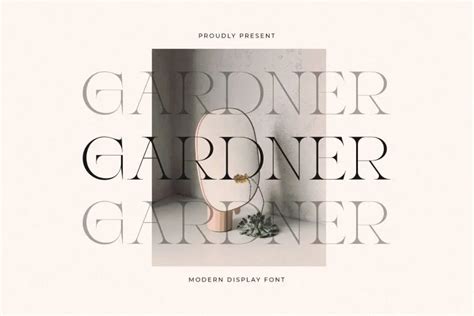
Hey guys, let’s talk about fonts! Specifically, the Gardner font . If you’re on the hunt for a typeface that’s both classic and contemporary, you’ve probably stumbled upon Gardner. It’s a real stunner, known for its clean lines and versatile nature. Whether you’re designing a logo, a website, or just need some killer text for a print project, Gardner can seriously level up your game. But the big question on everyone’s mind is: can you get the Gardner font for free? Well, buckle up, because we’re diving deep into the world of font downloads, legalities, and where you might just snag this awesome font without breaking the bank.
The Gardner Font: Is it Really Free? A Deep Dive
So, back to our star, the Gardner font. From what we can gather, the original Gardner font, designed by typographer Mark van Bronkhorst , is a commercial typeface. This means that for full, unrestricted use, especially for commercial projects, you’ll typically need to purchase a license. These licenses can vary depending on the foundry (the company that sells the font) and the scope of your usage. Think websites, print materials, merchandise – each might have different licensing tiers. Trying to find a truly free download of the original, copyrighted Gardner font for commercial use is likely to lead you down a rabbit hole of sketchy websites and potentially illegal downloads. And let’s be real, we want to keep things legit and support the designers, right?
However, the world of typography is vast and wonderful. Sometimes, fonts inspired by popular designs, or fonts that share a similar aesthetic, might be available for free. These are often created by independent designers or found on platforms that offer free fonts. While they might not be the exact Gardner font, they could offer a very similar vibe for your projects. It’s always worth exploring these alternatives if your budget is tight.
• Adobe Fonts (formerly Typekit): If you’re an Adobe Creative Cloud subscriber, you have access to a vast library of premium fonts, including many professional-grade typefaces, often similar in style to Gardner. This is a fantastic, legal way to access high-quality fonts without individual purchases for each project. It’s a serious game-changer for designers.
• Creative Market / Envato Elements: These platforms are marketplaces where designers sell their work. You’ll find premium fonts here, including professional versions of fonts like Gardner. While not free, they often have sales, bundles, and subscription options that can make acquiring high-quality fonts more affordable. Plus, you’re directly supporting the creators!
Looking for Gardner-Esque Alternatives?
If the specific Gardner font is out of reach for your current needs, don’t despair! There are plenty of fonts that share its clean, readable, and modern aesthetic. When searching for alternatives, keep an eye out for these characteristics:
• Geometric Sans-Serifs: Gardner has a strong geometric influence. Look for fonts with clean, circular or polygonal shapes in letters like ‘o’, ‘a’, and ‘e’. Fonts like Montserrat, Lato, or Poppins on Google Fonts often fit this bill.
• Humanist Sans-Serifs: These fonts have a bit more warmth and calligraphic influence, often with varied stroke widths. They can also offer a sophisticated and friendly feel. Consider Open Sans or Roboto.
• Neutral and Versatile: The best alternatives will be fonts that are highly readable across different sizes and mediums. They should be able to handle everything from body text to headlines without looking out of place.
The Verdict: Free Gardner Font vs. Smart Alternatives
So, to wrap things up, finding a legitimate, free download of the original Gardner font for unrestricted use, especially commercial use, is highly unlikely. It’s a premium typeface, and that’s okay! Supporting designers by purchasing licenses is a vital part of the creative ecosystem. However, this doesn’t mean you’re out of luck. The digital world is brimming with incredible free font resources like Google Fonts and Font Squirrel. You can discover a wealth of stylish, high-quality fonts that are legally free for commercial use. And if you’re specifically chasing that Gardner vibe, explore the many fonts inspired by its clean, modern aesthetic. With a bit of digging, you can absolutely find the perfect typeface to make your next project shine, all while staying legal and ethical. Happy designing, guys!